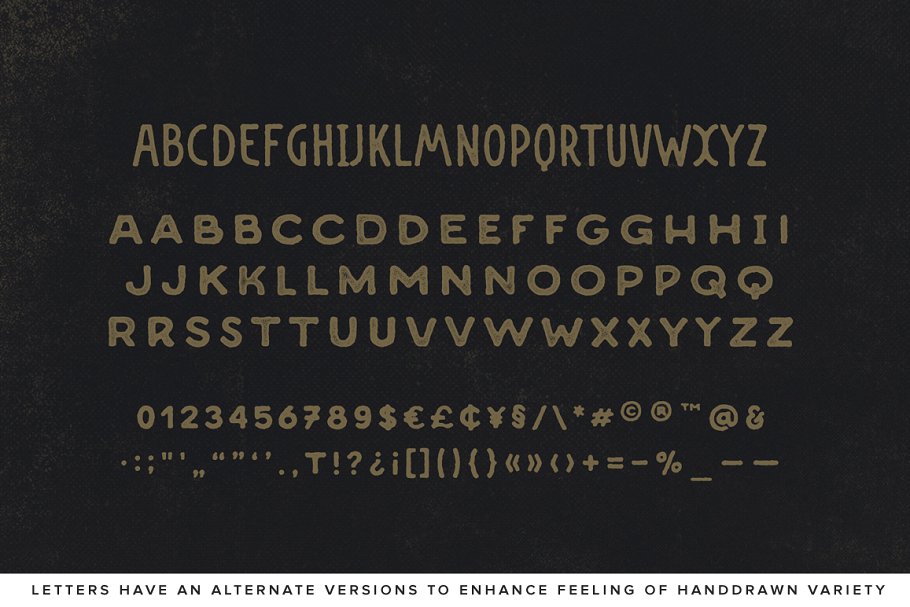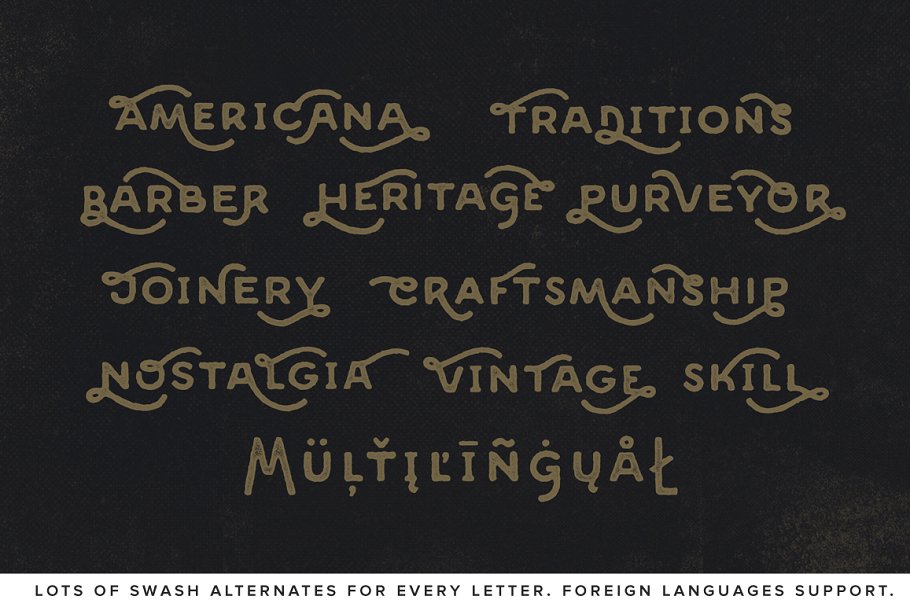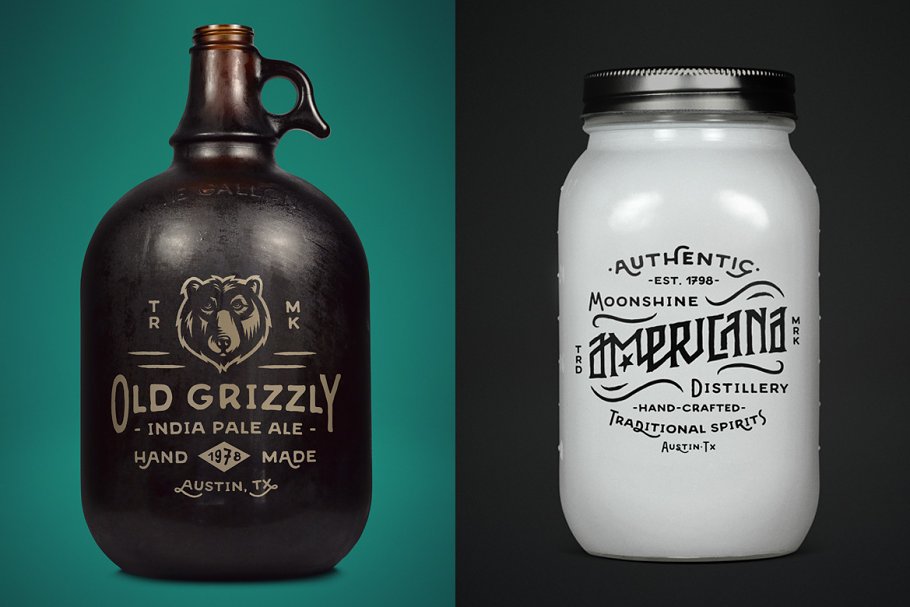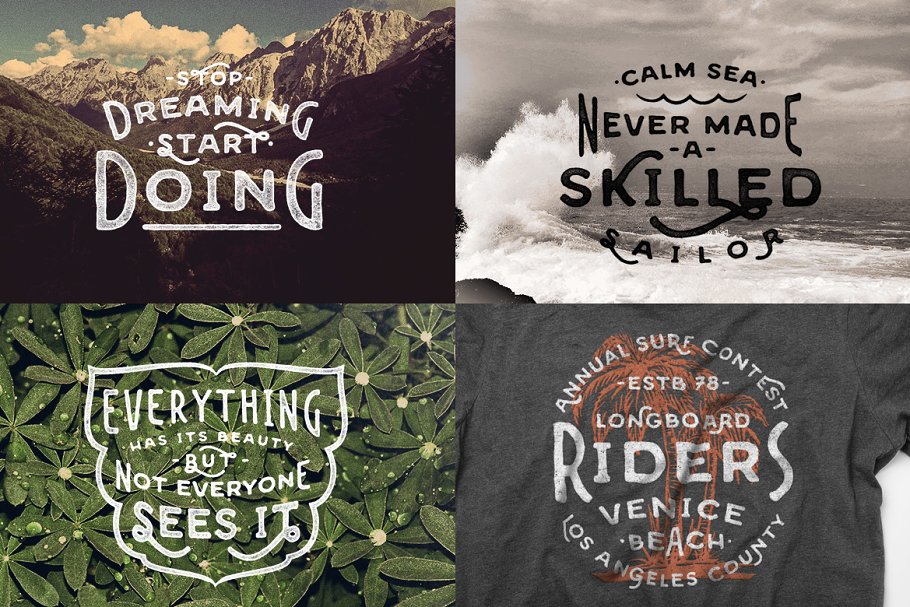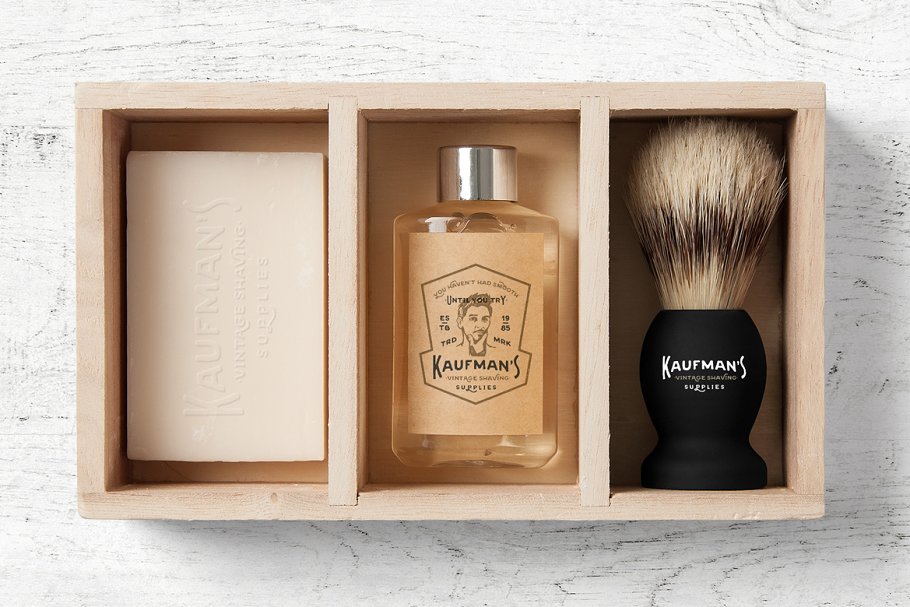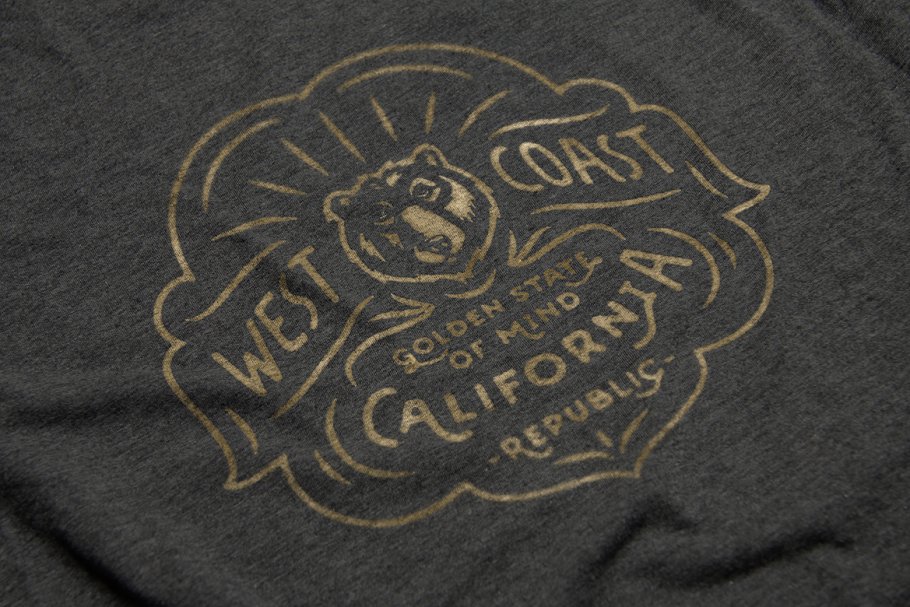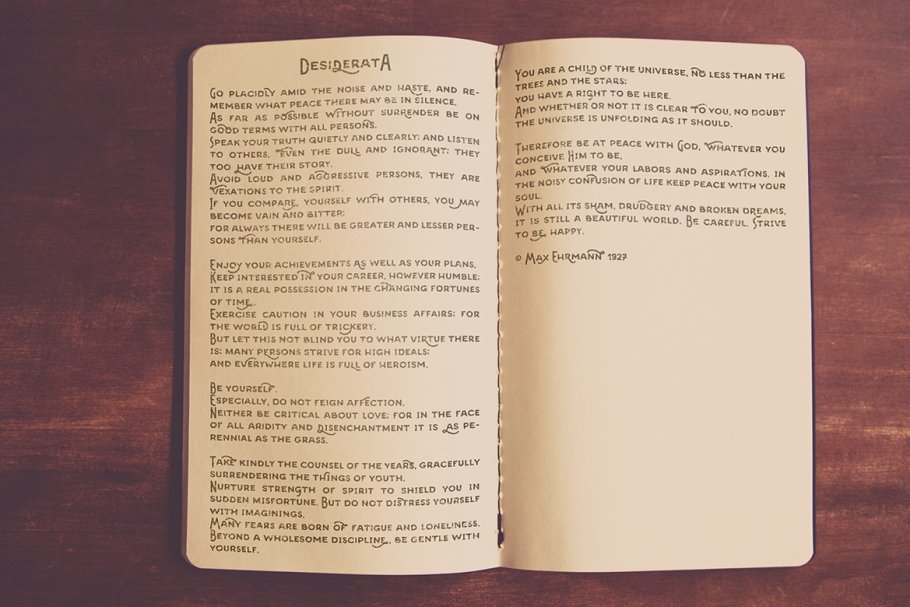
About the Desiderata Font
Introducing Desiderata, a new must have typeface for vintage lovers, It is inspired by the the good old days, hand-crafted art and artisans of the past, Desiderata is intended to convey that hand made aesthetics of neo-nostalgia and vintage feeling many of designers are trying to embrace nowadays, Each letter was hand drawn with great attention then accurately digitized with slightly imperfect edges to ensure that vintage authenticity and feel of age
It is a great idea to use it for logos, inspirational quotes, t-shirt graphics, typography art, apparel, labels, badges, posters,business cards, stylized wedding invitations, prints, signs, emblems, book cover designs headlines, titles, etc, Desiderata is the display sans serif typeface thatcomes with all the essential glyphs, numbers, punctuation marks, currency symbols and multilingual characters
One of the most distinctive traits of it is that its lowercase letters have the small caps design, Desiderata also has some cool extra features that make it more handy and versatile, There is nothing more dull than a typeface imitating handwriting but showing two identical glyphs in the places with double letters, as in ‘pretty’ for example
So I’ve created additional set of letters with slightly different design to let you achieve more natural and sophisticated handdrawn look of your designs by having choice between different variants of the same character, Another great feature of Desiderata is that every small cap letter has up to 12 swash alternates, that gives you a wide range of decorative possibilities (see preview images)